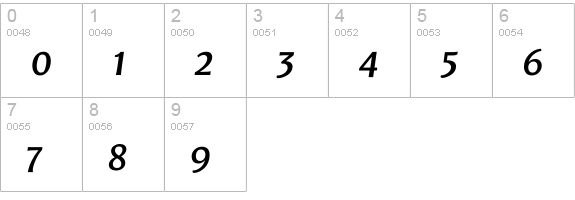
Leksa Sans DemiBold Italic is a sub-bold, structured, italic variant in the Leksa typeface family \xE2\x80\x94 well suited to sub-headlines and emphasised passages.
Leksa Sans DemiBold Italic font strikes the perfect balance between modernity and sophistication. Its sleek and stylish design exudes a sense of confidence and professionalism. The italicized version adds a touch of elegance, making it ideal for projects that require a touch of flair. This versatile typeface is perfect for a wide range of design projects, from branding to editorial design. Its bold and distinctive look ensures that your message will stand out and make a lasting impression. And the best part? Leksa Sans DemiBold Italic font is available for free download at FontsMarket.com. So go ahead and elevate your design projects with this stunning typeface today!